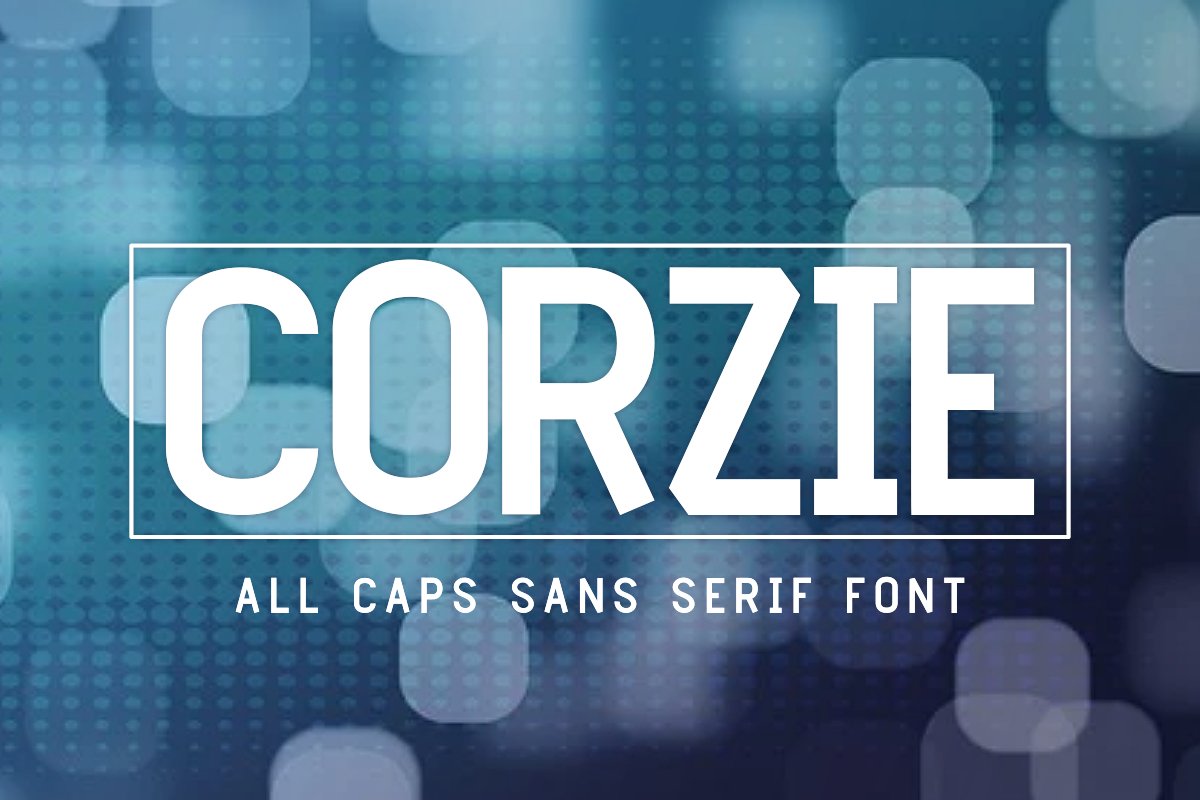
Corzie
Introducing Corzie - an all caps sans serif font.
Great for titles, posters, social media, product packaging, brochures, merchandises, magazines, and many more.